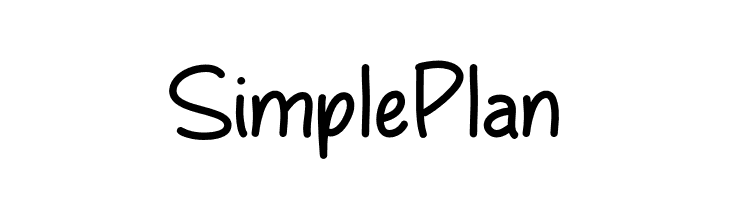
A playful, handwritten font with dynamic strokes and a casual style.
A playful and elegant script font with a handwritten style.
A dynamic and fluid script font with elegant, flowing letterforms.